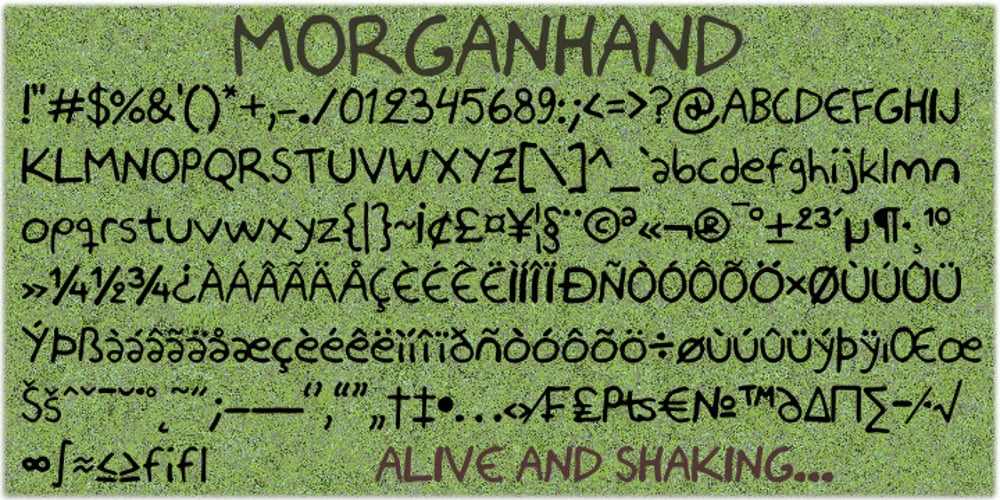
Morganhand
Morganhand font
Morganhand Font Family was designed by Heikki Morgan Hämäläinen and published by Morganismi. Morganhand contains 2 styles and family package options. Morganhand is a very individual typeface based on the handwriting of Finnish outsider artist Heikki Morgan Hämäläinen. Its economical lines make it very serviceable for numerous uses like cards, notes, prints, comics and so on. Morganhand Outline is based on Morganhand Regular, a handwritten font imitating the writing of Finnish outsider artist Heikki Morgan Hämäläinen. Every drawn line of each glyph is outlined giving a fun expression. The two fonts can be used separately or mixed together. Mightly usable in cards, notes, prints, comics etc. Morganhand Outline supports many European languages. Morganhand supports many European languages. The font works fine with its sister Morganhand Outline which is kind of a modification of it.